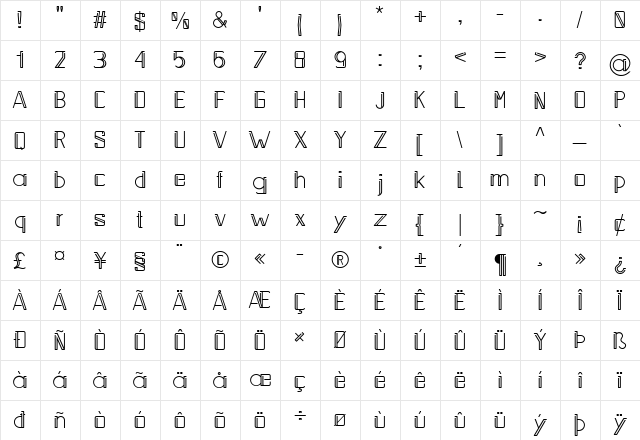
Walterson Regular
| Foundry | Kong Font |
| Designer | Typeface騋ongFont).2020. |
Design Context for Walterson Typeface
Walterson offers clean, dependable letterforms without strong stylistic allegiance, making it a practical choice for designers who need flexibility.